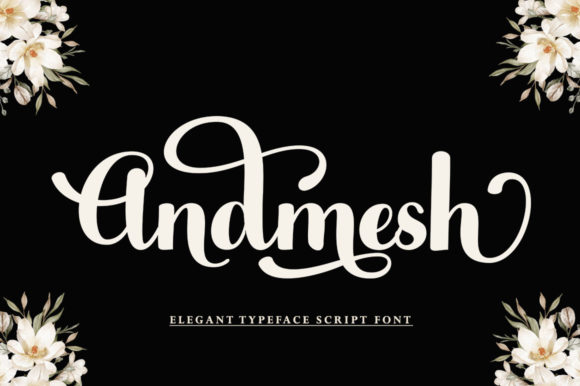
Dive into the world of elegance and charm with Andmesh Font, a captivating script typeface that will ignite your creativity and leave a lasting impression on your designs.
Unleash the romance and sweetness in your projects with Andmesh Font. This exquisite calligraphy font dances along the baseline, adding a touch of luxury and sophistication to every character. Whether you're designing wedding invitations, greeting cards, logos, or social media posts, Andmesh Font will elevate your work to new heights.
With its PUA encoding, accessing the full range of stunning glyphs and ligatures is a breeze, allowing you to effortlessly incorporate intricate details and flourishes into your designs. Let your creativity soar as you explore the endless possibilities Andmesh Font has to offer.
Step into a world of enchantment and let Andmesh Font guide you on a journey of artistic expression. Its graceful curves and playful swirls will add a touch of magic to your designs, captivating your audience and leaving them spellbound. Embrace the beauty of calligraphy and elevate your projects to new levels of excellence with Andmesh Font.